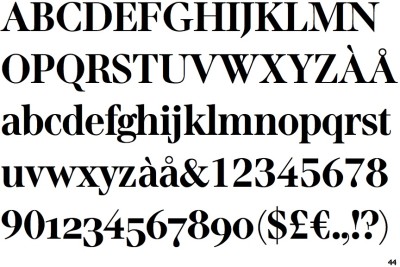
Lucid Fantasy Free Download
Lucid Fantasy Font Free Download
Lucid Fantasy Font Free Download is a whimsical, elegant display typeface that blends dreamlike charm with artistic sophistication. Featuring flowing curves, unique letterforms, and a touch of fantasy-inspired design, Lucid Fantasy Font is perfect for book covers, movie posters, fantasy-themed branding, invitations, packaging, and social media graphics. Its magical and creative aesthetic makes it ideal for projects aiming to evoke imagination, wonder, and enchantment.
Whether you're crafting fantasy novel covers, mystical event invitations, or magical branding materials, Lucid Fantasy Font adds an enchanting, sophisticated touch to your work. Its balance of creativity and readability makes it versatile across both print and digital media.